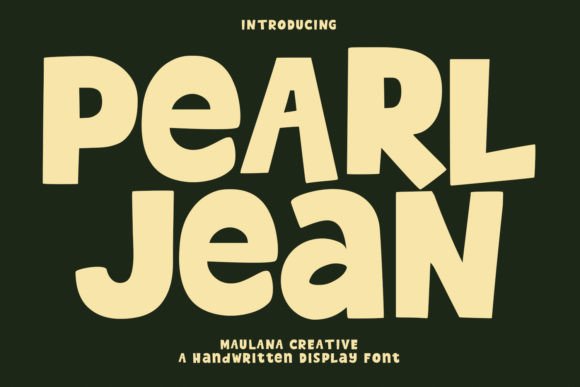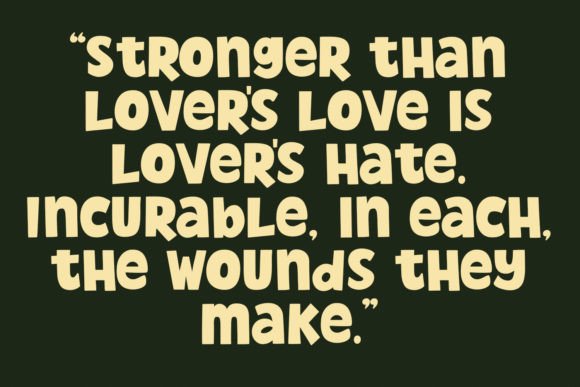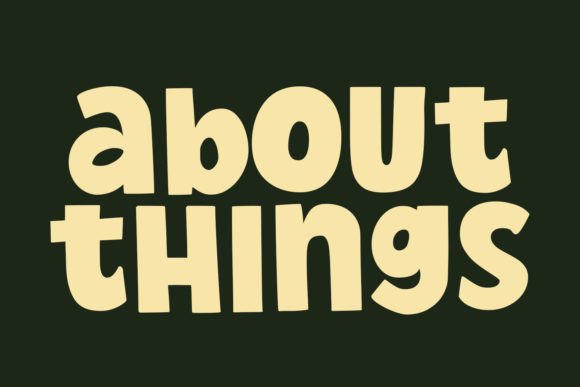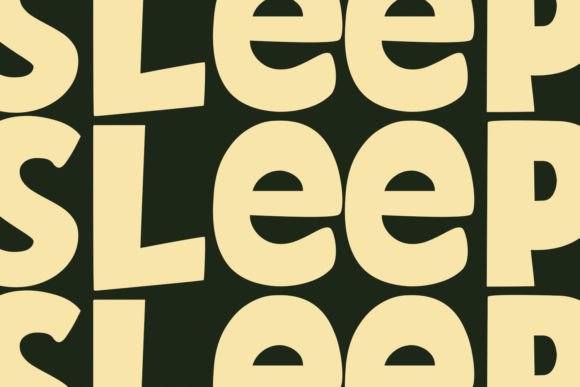
Pearl Jean Font: A Playful Display Font for DIY & Cricut Projects
About the Pearl Jean Font
Elevate your designs with Pearl Jean Font, a font that combines sophistication with readability. Pearl Jean is a fun and casual display font. No matter the topic, this font will be an incredible asset to your fonts’ library, as it has the potential to elevate any creation.
Pearl Jean’s playful, casual style makes it ideal for headlines, short slogans, and branding elements where a touch of whimsy is desired. It works exceptionally well in posters, social media graphics, and packaging for products targeting a younger or more informal demographic. However, its less-than-optimal x-height and letter spacing make it unsuitable for body text or long-form content. Avoid using it in UI or situations requiring high readability.
Pairing Pearl Jean effectively requires a contrasting typeface to balance its informality. A clean sans-serif like Open Sans or Lato would provide a strong counterpoint, offering readability for supporting text. For a more sophisticated feel, consider pairing it with a classic serif such as Garamond or a slightly more modern serif like Playfair Display.
The font’s overall personality is undeniably cheerful and approachable, lending itself well to brands focused on fun, creativity, and a youthful aesthetic.
Pearl Jean Font Usage Examples
Pearl Jean Font Example